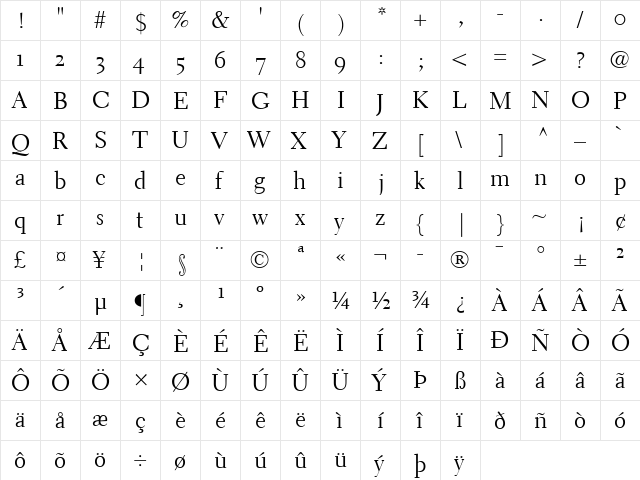
Electra LH RegularOsF Regular
Design Context for Electra LH RegularOsF Typeface
Electra LH RegularOsF takes a measured approach to typography — its balanced proportions and neutral character make it a reliable workhorse for both digital and print work.